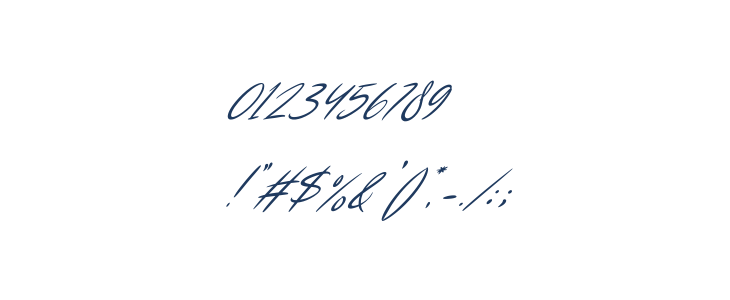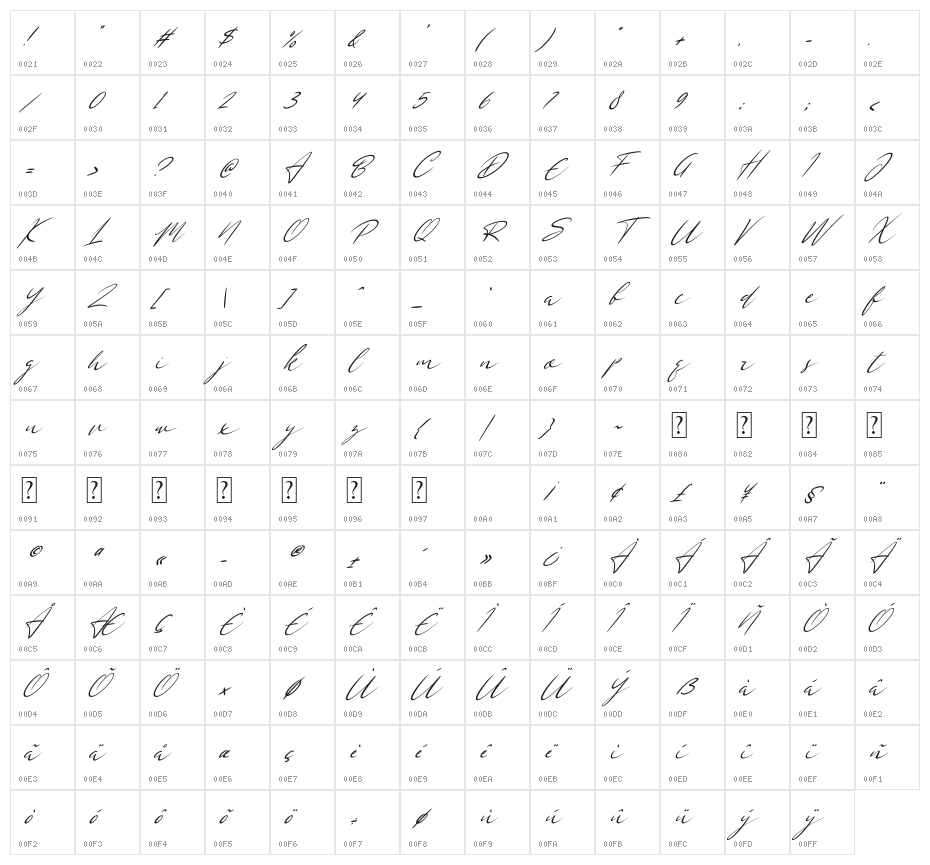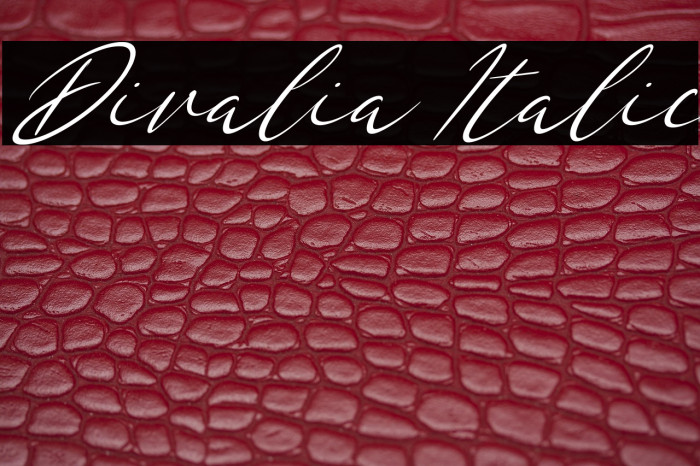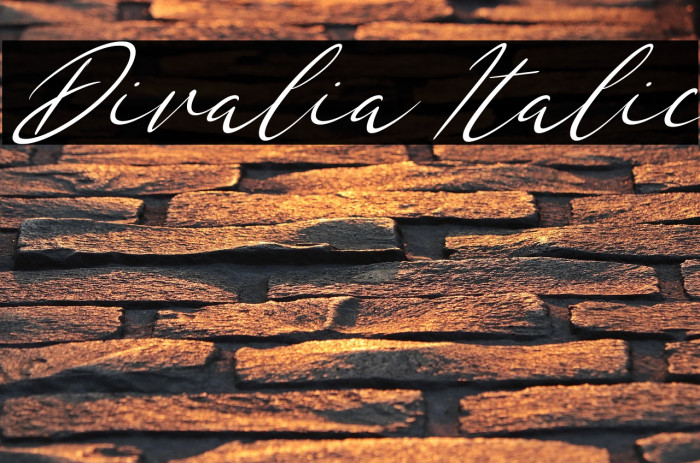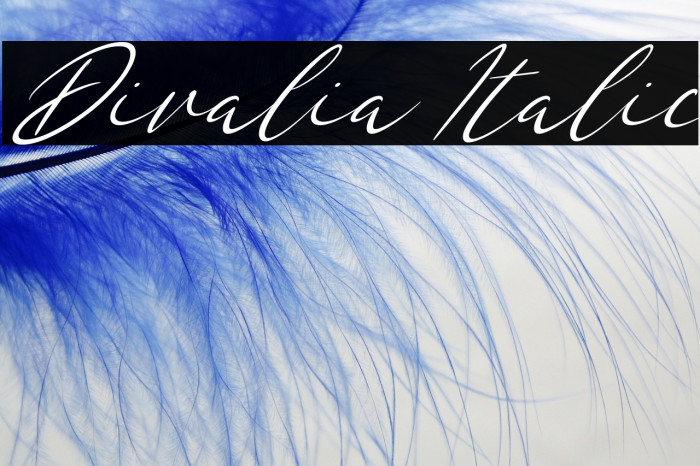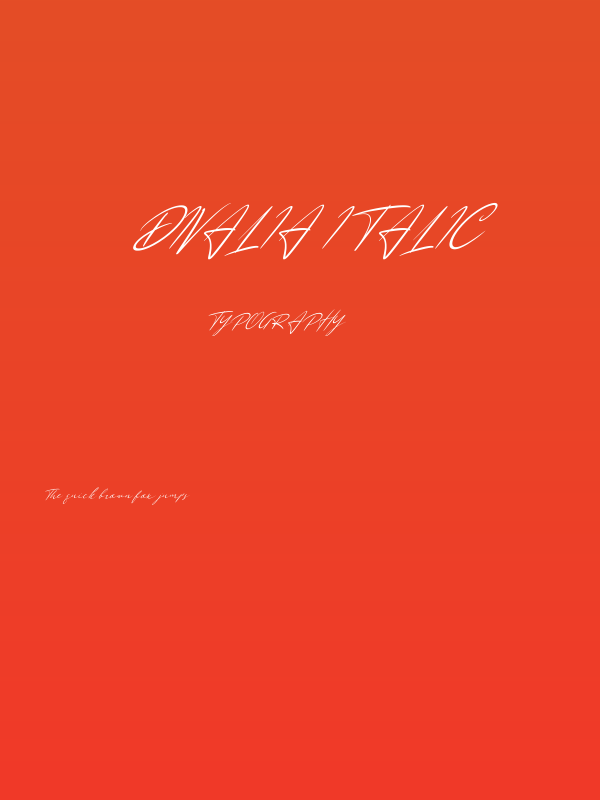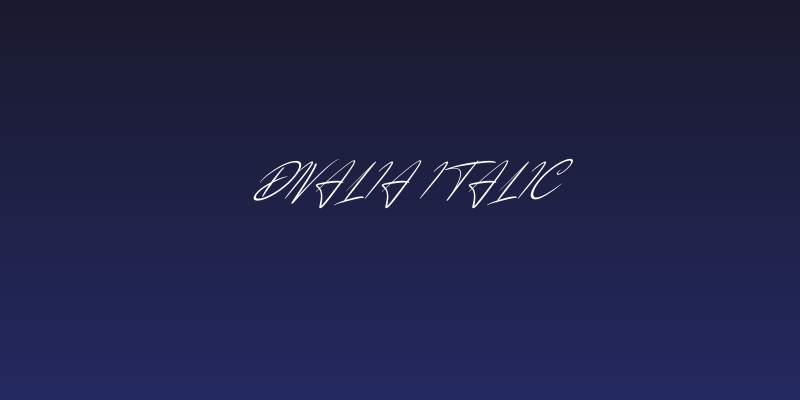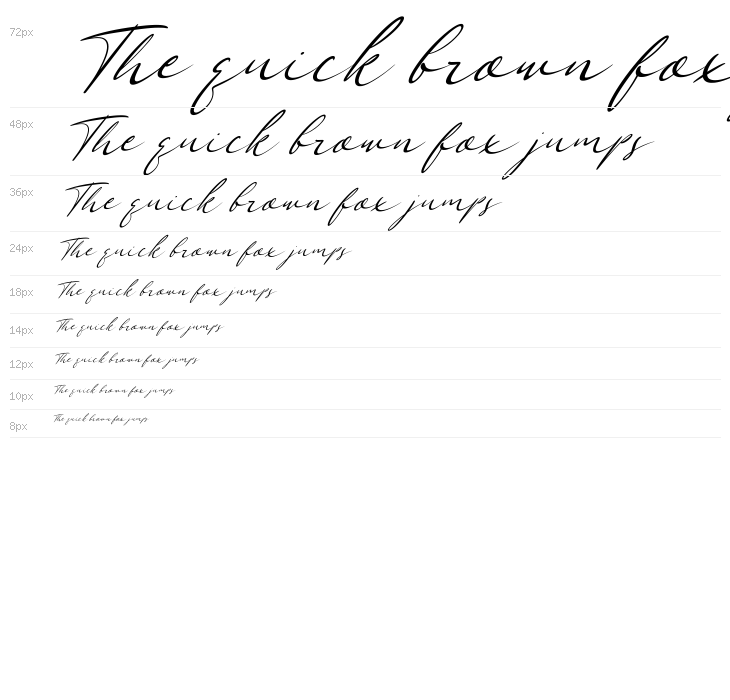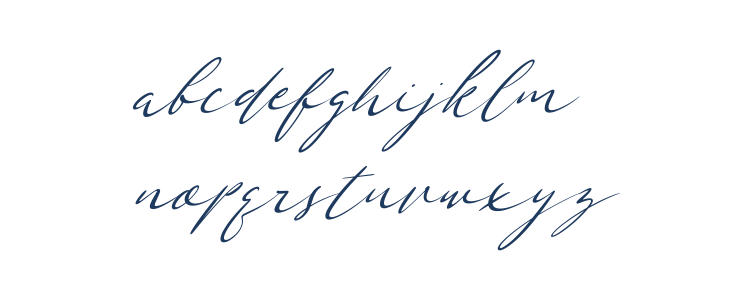
Divalia Italic Font
Divalia Italic Description
This font exudes elegance and fluidity, characterized by its cursive, handwritten style. The letters are gracefully slanted, with smooth, flowing lines that create a sense of movement and sophistication. The uppercase letters are bold and prominent, while the lowercase letters maintain a delicate balance, offering a harmonious blend. The numerals and special characters are consistent with the overall aesthetic, providing a cohesive look. This font is ideal for projects that require a touch of elegance and personal flair, such as invitations, branding, and editorial design.
Overall StyleElegant, Handwritten
Use CaseHeadlines, Invitations, Branding
Proposed ProjectsIdeal for wedding invitations, personal branding, and editorial design.